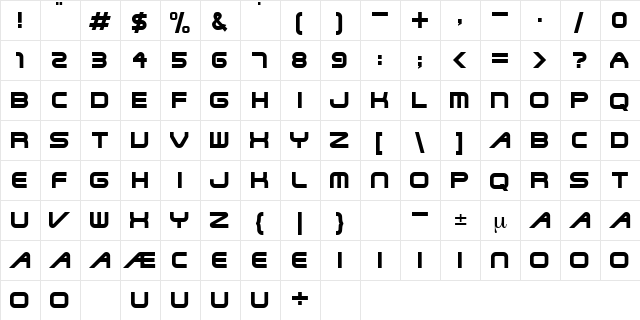
Wolverine Regular
Design Context for Wolverine Typeface
Wolverine offers clean, dependable letterforms without strong stylistic allegiance, making it a practical choice for designers who need flexibility.